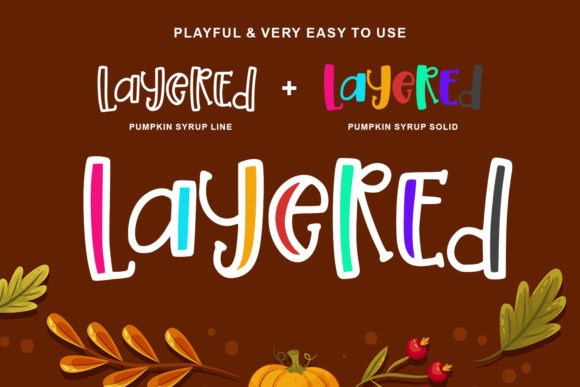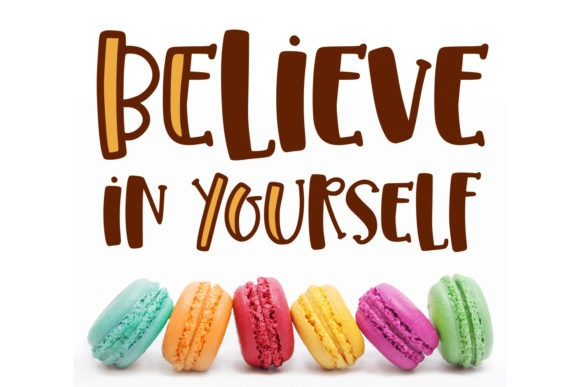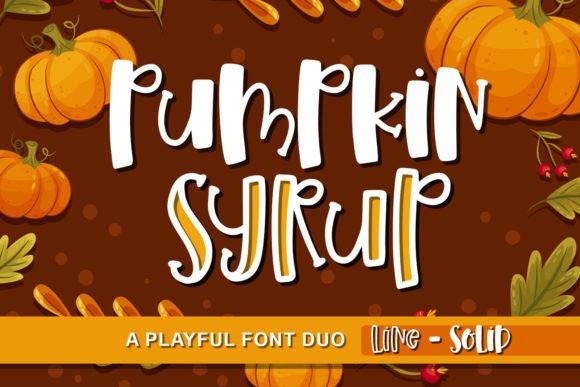
Pumpkin Syrup Font
Pumpkin Syrup Display Font is a crafty and playful display font. No matter the topic, this font will be an incredible asset to your fonts’ library, as it has the potential to elevate any creation.